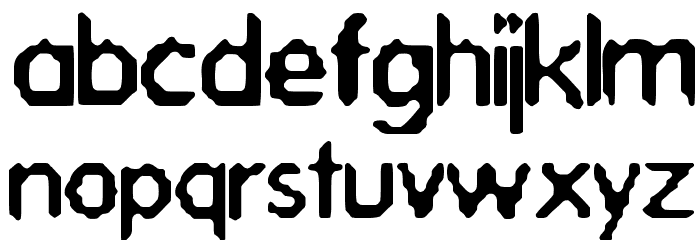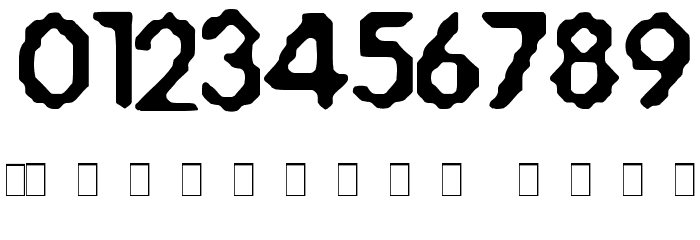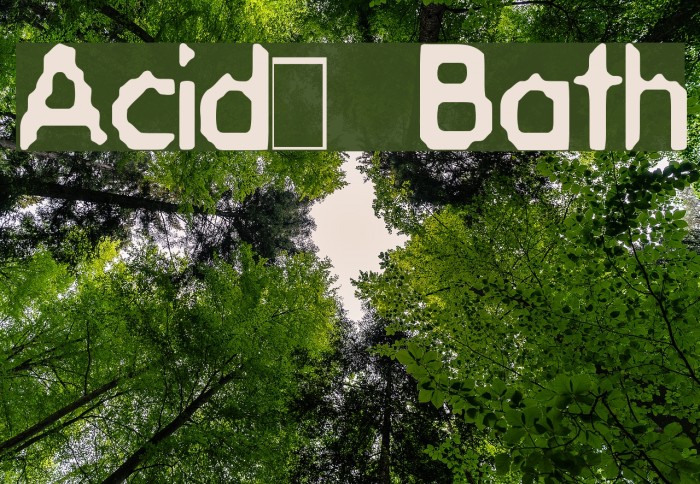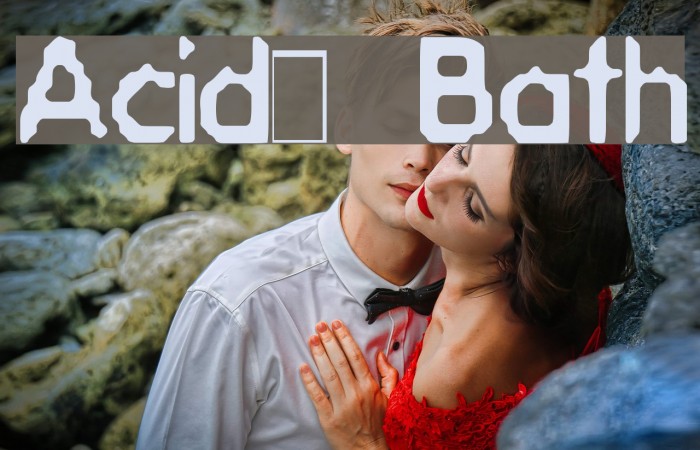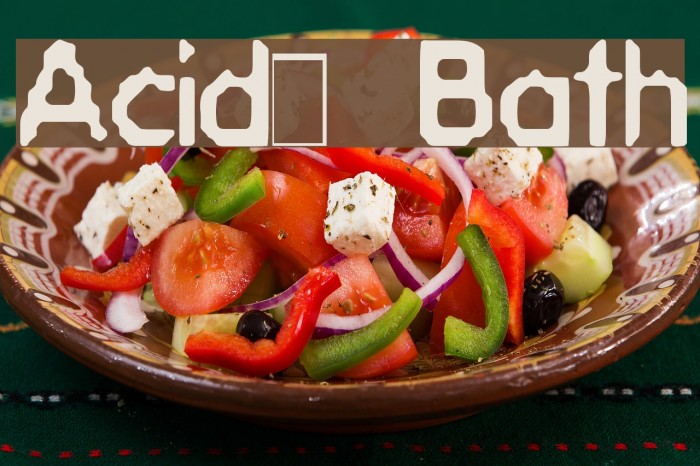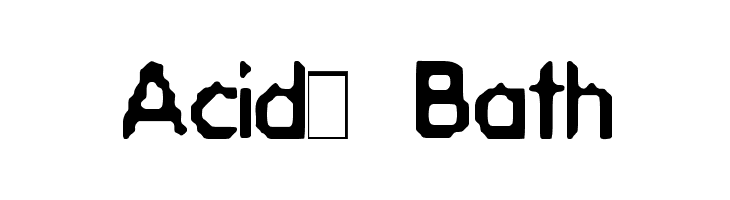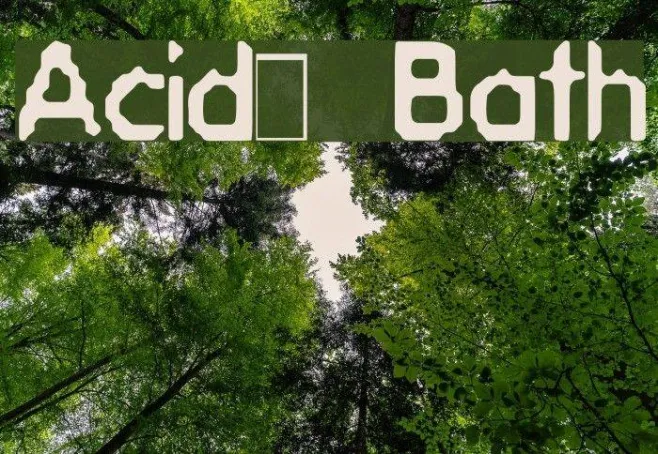
Acid-Bath Font
This font features a bold and rugged design, characterized by its uneven, jagged edges that give it a distressed and grungy appearance. The uppercase and lowercase letters maintain a consistent thickness, creating a uniform look despite the irregular outlines. The numbers and special characters follow the same design principles, ensuring a cohesive style throughout. The font's unique aesthetic makes it stand out, ideal for projects that require a bold statement or an edgy, alternative vibe.
A bold, jagged font with a distressed, grungy appearance.
- Proposed Projects: Perfect for album covers, posters, or branding for edgy and alternative brands.
- Overall Style: Grunge, Edgy